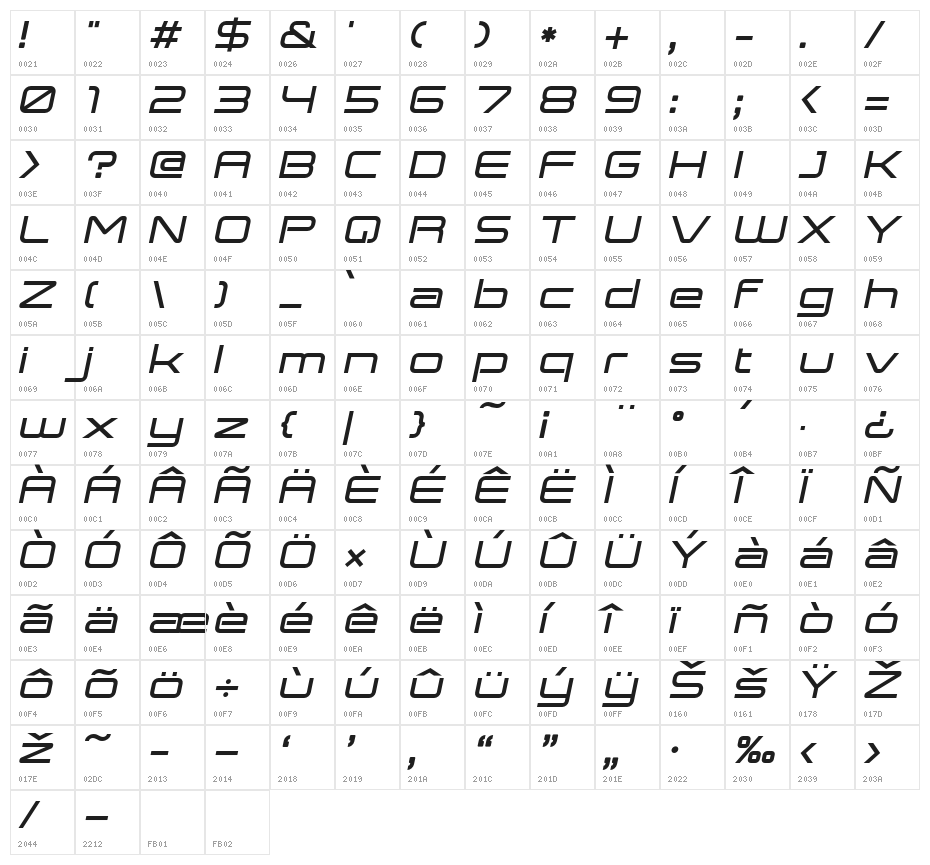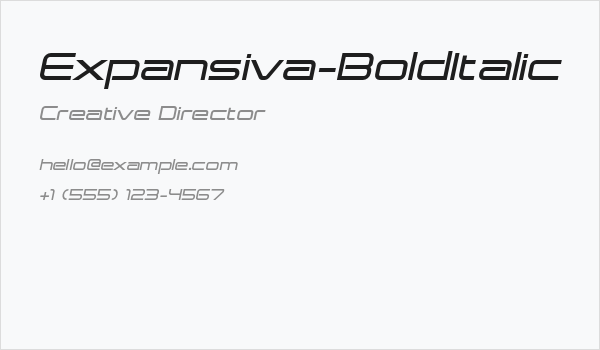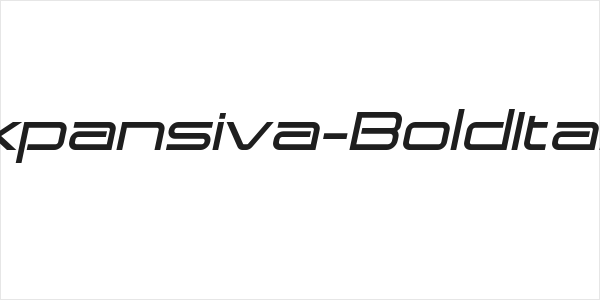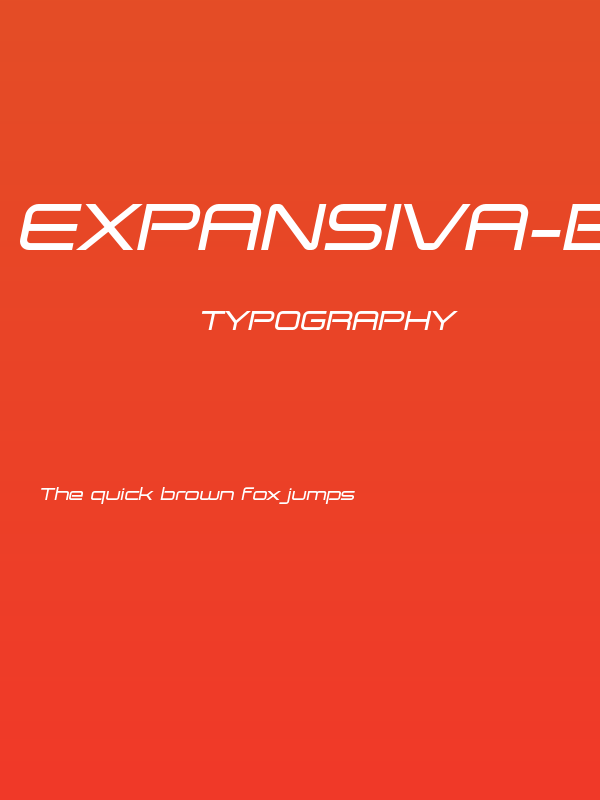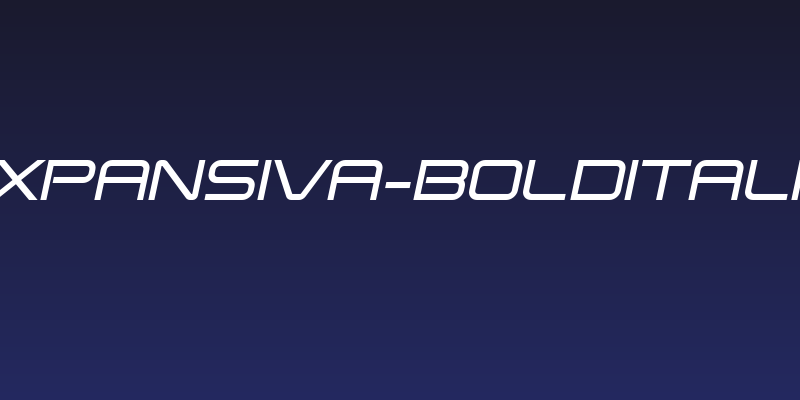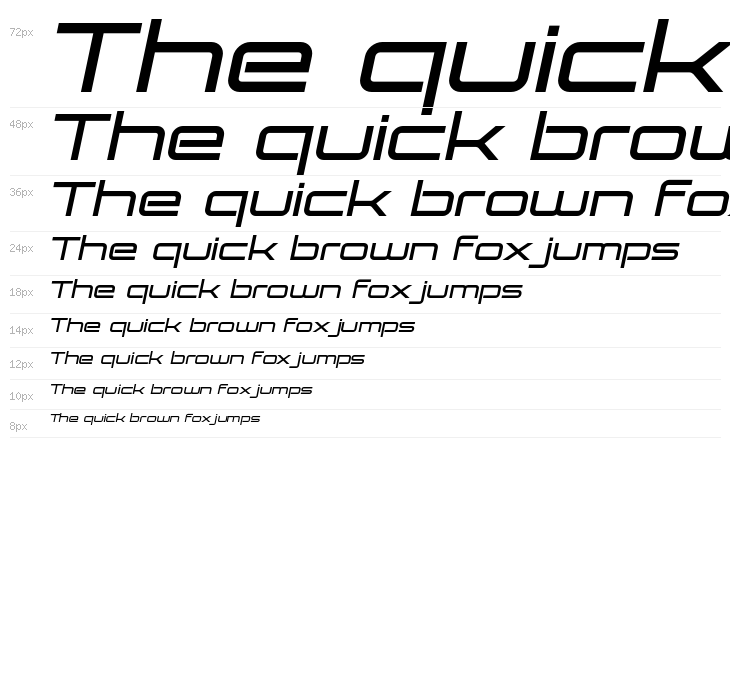
Expansiva-BoldItalic Font
Expansiva-BoldItalic Description
This font exhibits a modern and dynamic style with a sleek, italicized design. The characters are elongated and slightly slanted, giving a sense of motion and speed. The strokes are consistent in thickness, providing a uniform appearance across all characters. The uppercase letters are bold and prominent, while the lowercase letters maintain a similar width, ensuring readability. The numerals and special characters are designed to match the overall aesthetic, with clean lines and a futuristic feel. This font is ideal for projects that require a contemporary and energetic look.
| Use Case | Logos, Headlines, Branding |
| Proposed Projects | Ideal for technology branding, sports team logos, and modern advertising campaigns. |